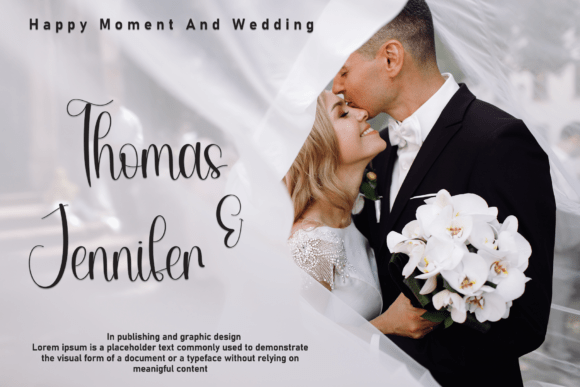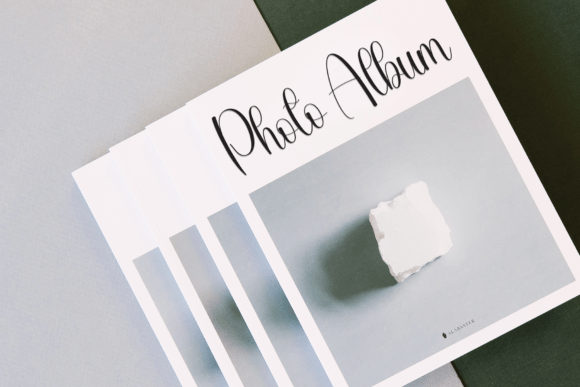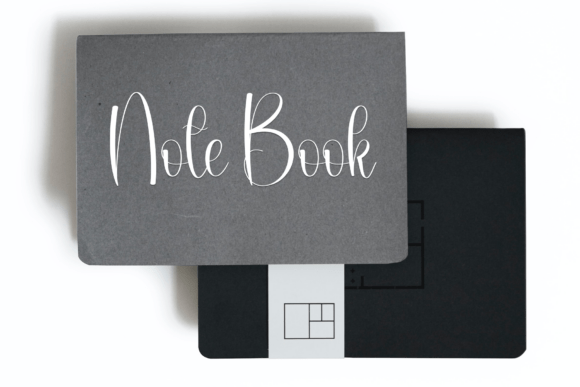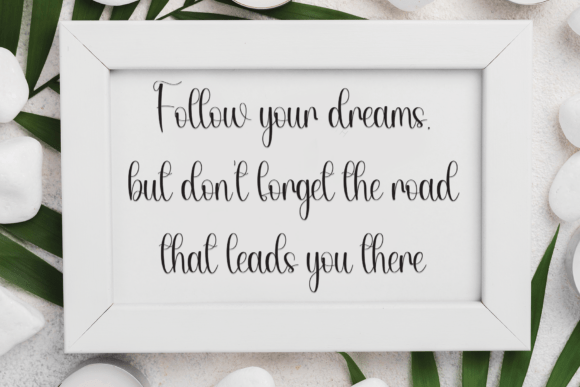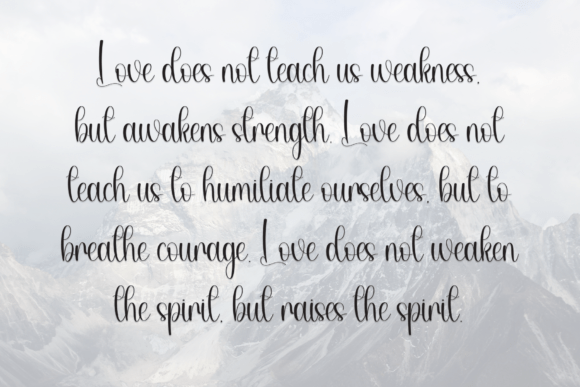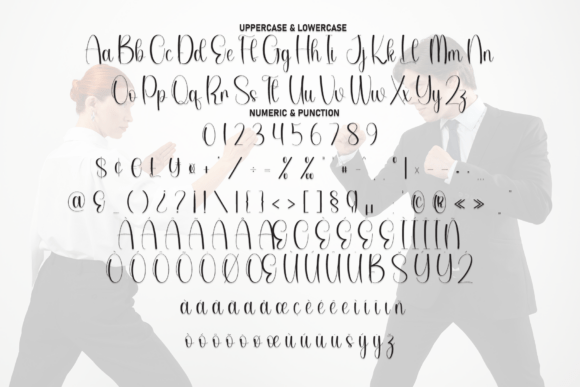
Fighting Font: The Perfect Choice for Adding a Touch of Whimsy to Your Designs
Are you looking for a font that can add a dash of personality and charm to your wedding invitations, greeting cards, or creative projects? Look no further than the enchanting handwritten script font, Fighting Font. This delightful font is teeming with charisma and vivacity, making it the perfect choice for anyone who wants to infuse their designs with a sprinkle of joy.
The Charm of Fighting Font
Fighting Font is known for its charming urge and tactile sweetness, which gives it a unique and captivating appeal. This font has the magical ability to engage your audience and leave a lasting impact, making it perfect for designers and crafters who want to create memorable and impactful designs. Whether you’re creating wedding invitations, greeting cards, or any other type of creative project, Fighting Font is sure to add a touch of warmth and personality to your work.
Bringing Warmth and Merryment to Your Designs
One of the standout features of Fighting Font is its natural warmth and cheerful vibe. This font is prized for its ability to broadcast warmth and merriment, making it perfect for designers and crafters who want to create designs that are both joyful and uplifting. With Fighting Font, you can immerse your projects in a world of joyous charm, amplified by the delightful spirit of this enchanting font.
The Benefits of Using Fighting Font
So why choose Fighting Font for your designs? Here are just a few benefits of using this delightful font:
- Unique and eye-catching: Fighting Font is a distinctive and eye-catching font that is sure to set your designs apart from the crowd.
- Warm and inviting: This font exudes friendliness and cheer, making it perfect for creating designs that are warm and inviting.
- Versatile: Fighting Font can be used for a wide range of creative projects, from wedding invitations and greeting cards to posters and social media graphics.
- Easily readable: Despite its playful and whimsical nature, Fighting Font is easily readable, making it perfect for designs that require a clear and concise message.
Tips for Using Fighting Font
Here are a few tips for using Fighting Font in your designs:
- Pair with contrasting fonts: Fighting Font pairs beautifully with contrasting fonts, such as bold and modern fonts, to create a striking and eye-catching design.
- Use in moderation: While Fighting Font is a delightful font, it’s best to use it in moderation to avoid overwhelming your design.
- Experiment with colors: Fighting Font looks great in a range of colors, from bright and bold to soft and pastel.
In conclusion, Fighting Font is a delightful and enchanting handwritten script font that is perfect for adding a touch of whimsy and charm to your designs. With its natural warmth and cheerful vibe, this font is sure to engage your audience and leave a lasting impact. Whether you’re a designer or crafter, Fighting Font is a great choice for anyone who wants to create memorable and impactful designs that are both joyful and uplifting.
So why not give Fighting Font a try? With its unique and eye-catching appeal, this font is sure to bring a smile to your face and a touch of magic to your designs.